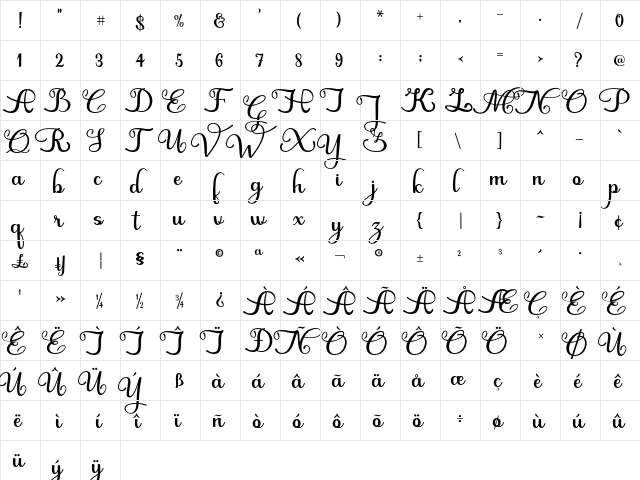
farmfresh Regular
| Foundry | Akifatype Studio |
| Designer | Akifatype Studio |
Design Context for farmfresh Typeface
farmfresh is a composed and adaptable typeface that performs quietly and consistently across a wide range of design contexts.